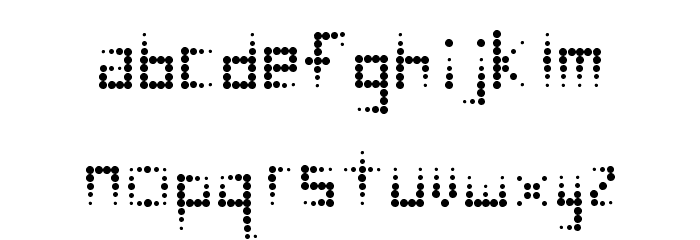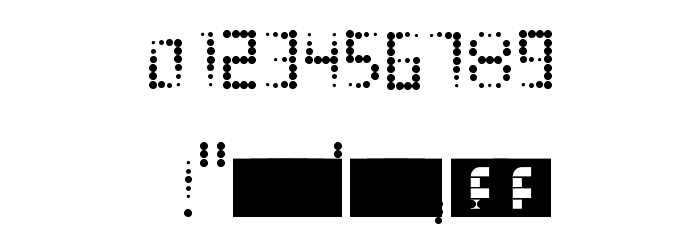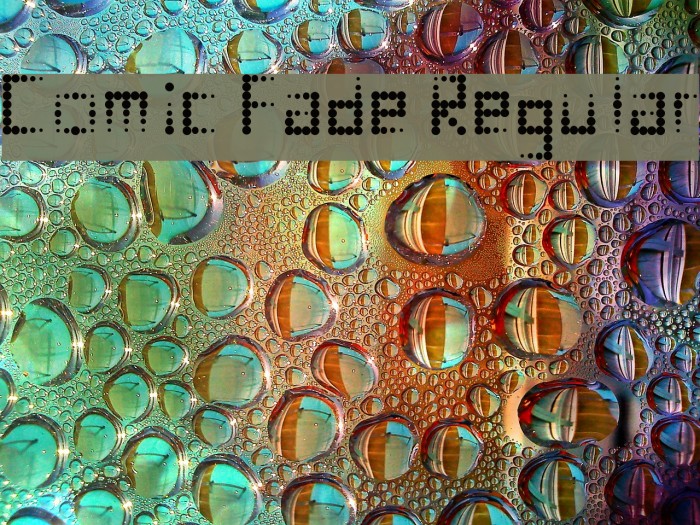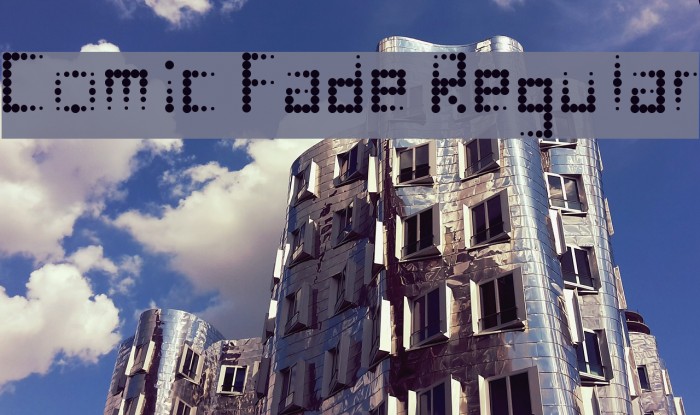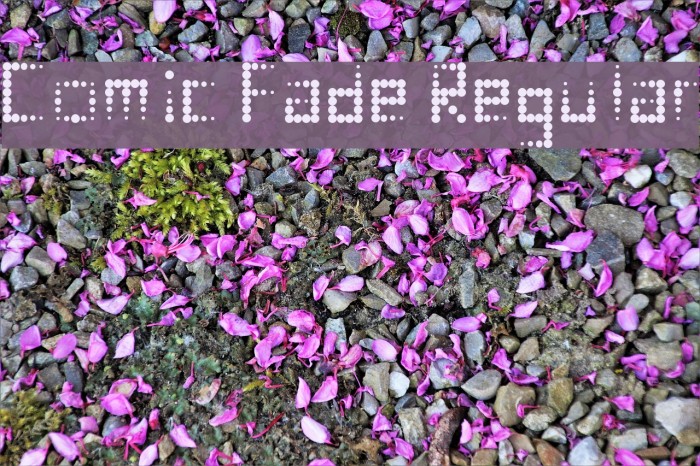
Comic Fade Regular Font
This font features a playful and unique design, characterized by its dotted pattern that forms each letter and number. The dots are evenly spaced, creating a cohesive and visually appealing appearance. The font maintains a consistent size and shape across all characters, providing a uniform look. Its whimsical style makes it stand out, offering a fun and creative option for various design projects. The font's structure is clear and legible, despite its decorative nature, making it suitable for both display and informal text settings.
A playful, dotted font with a whimsical and creative style.
- Proposed Projects: Ideal for children's books, playful branding, party invitations, and creative posters.
- Overall Style: Playful, Creative